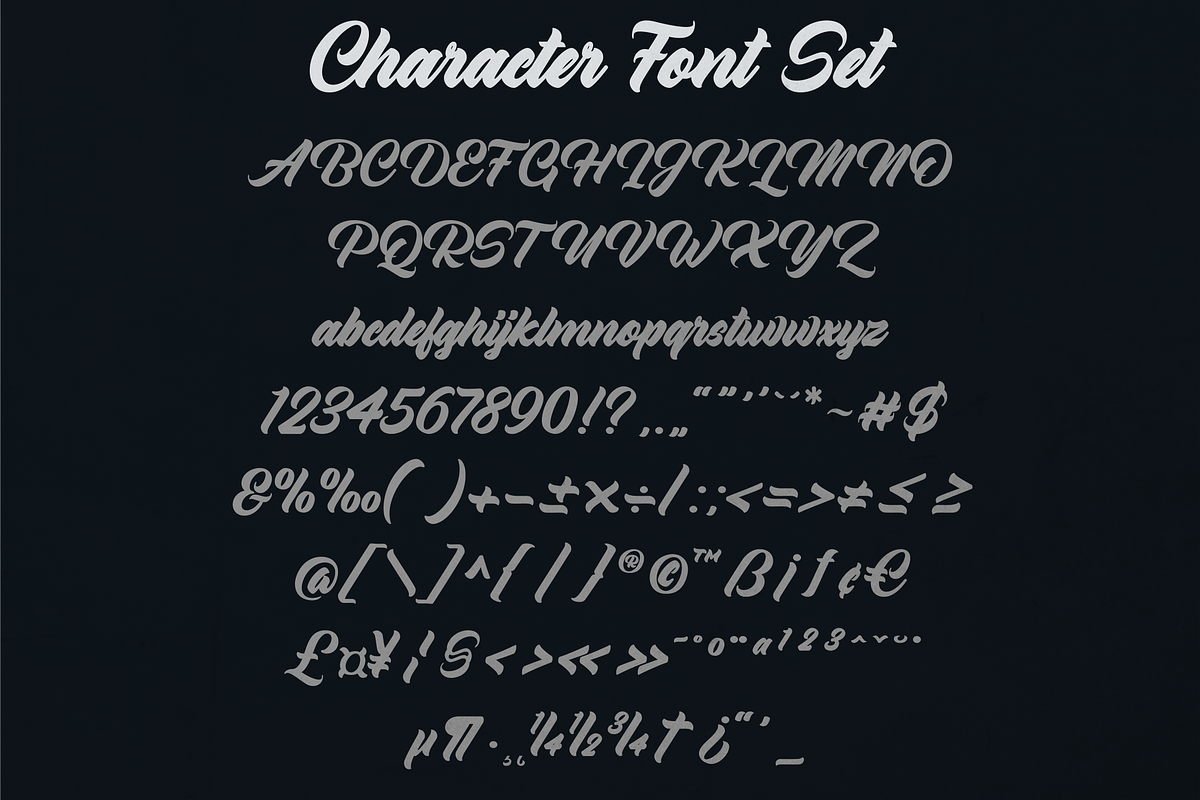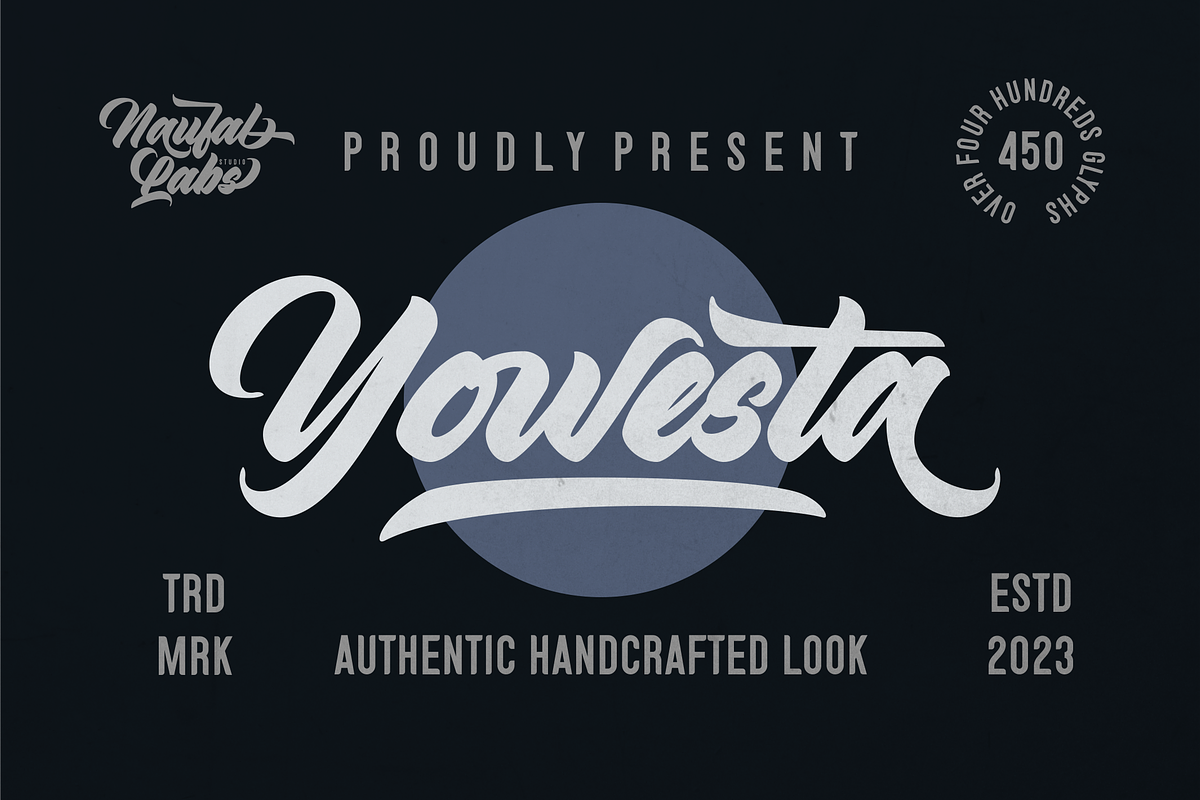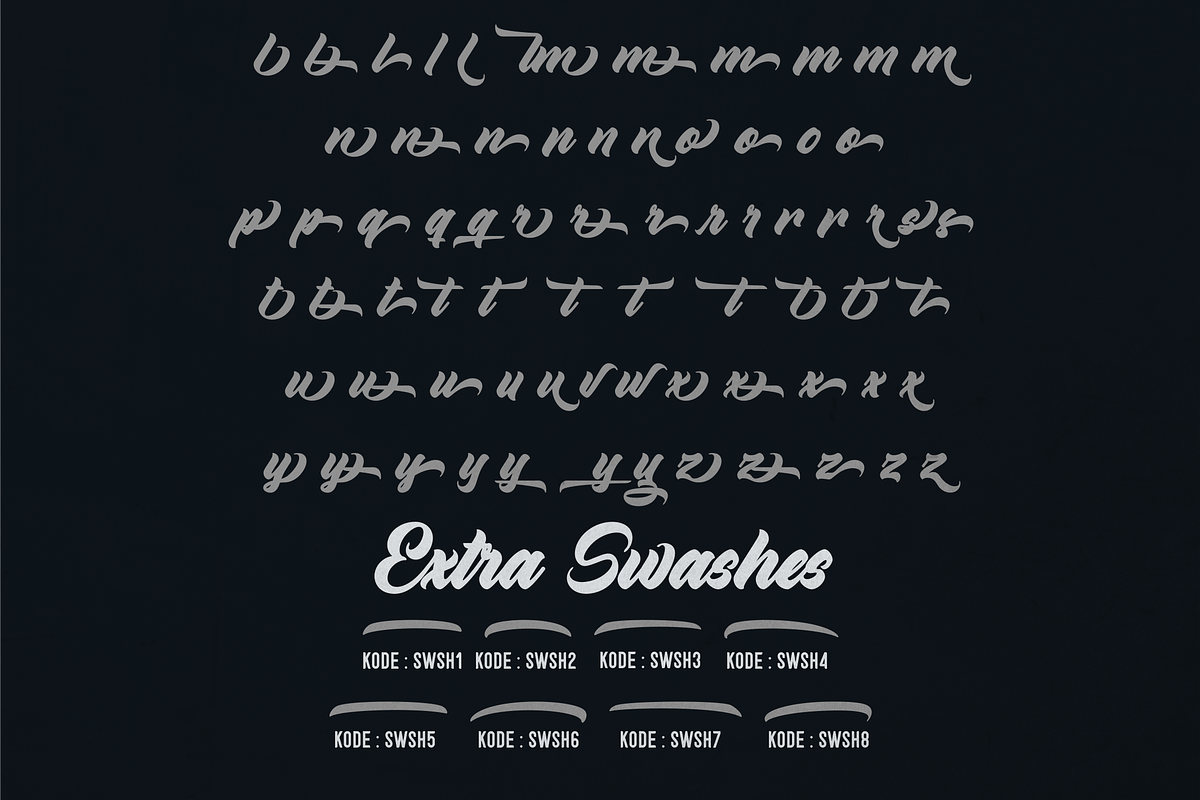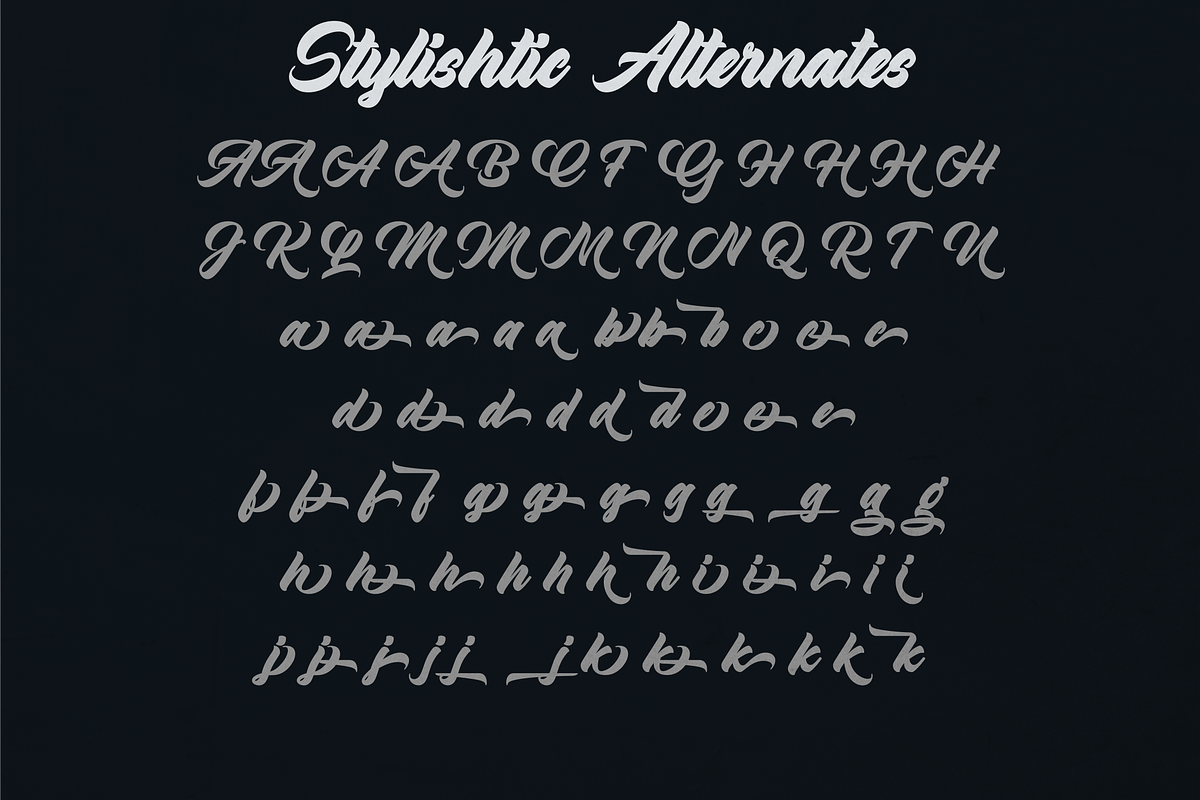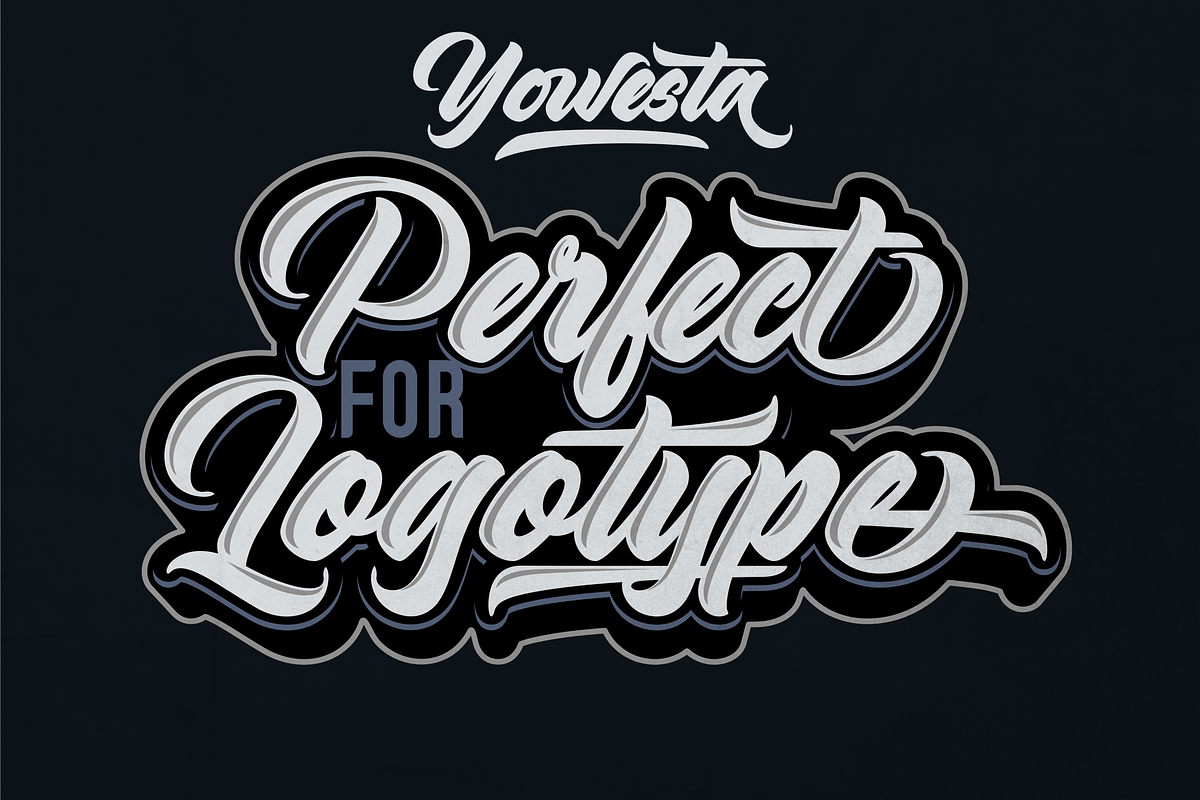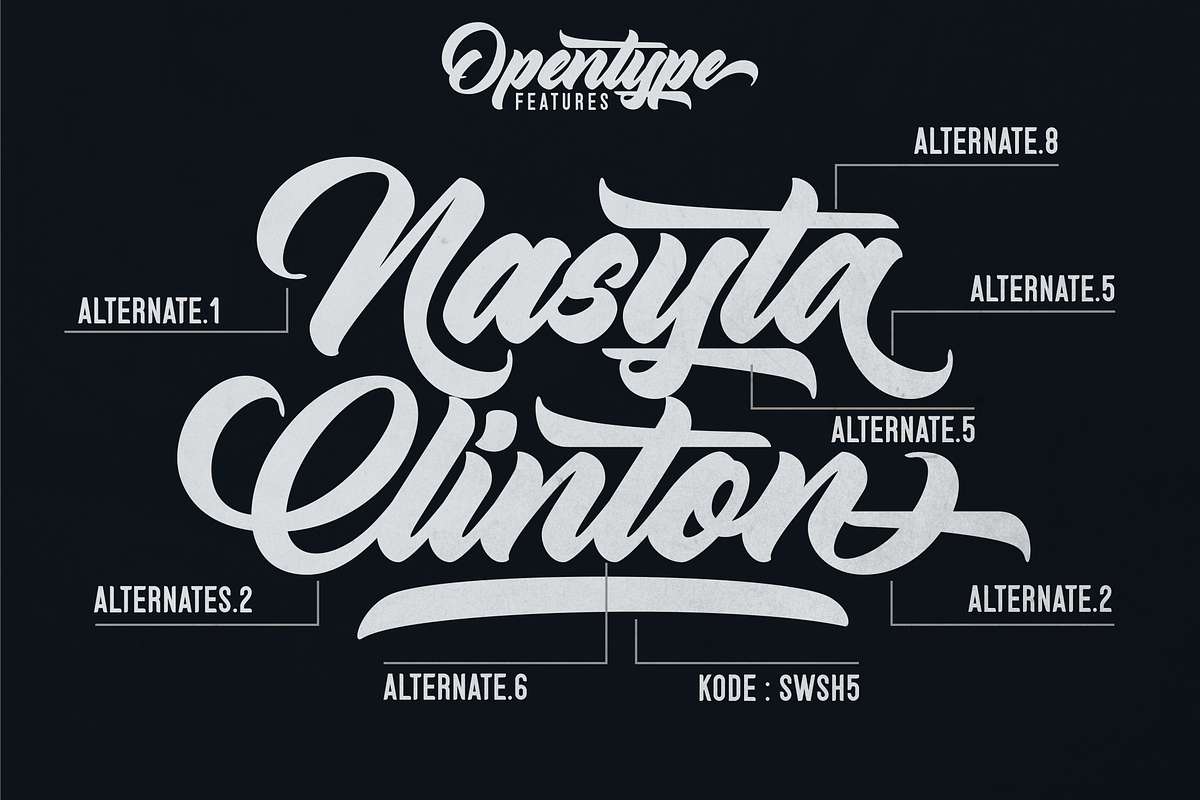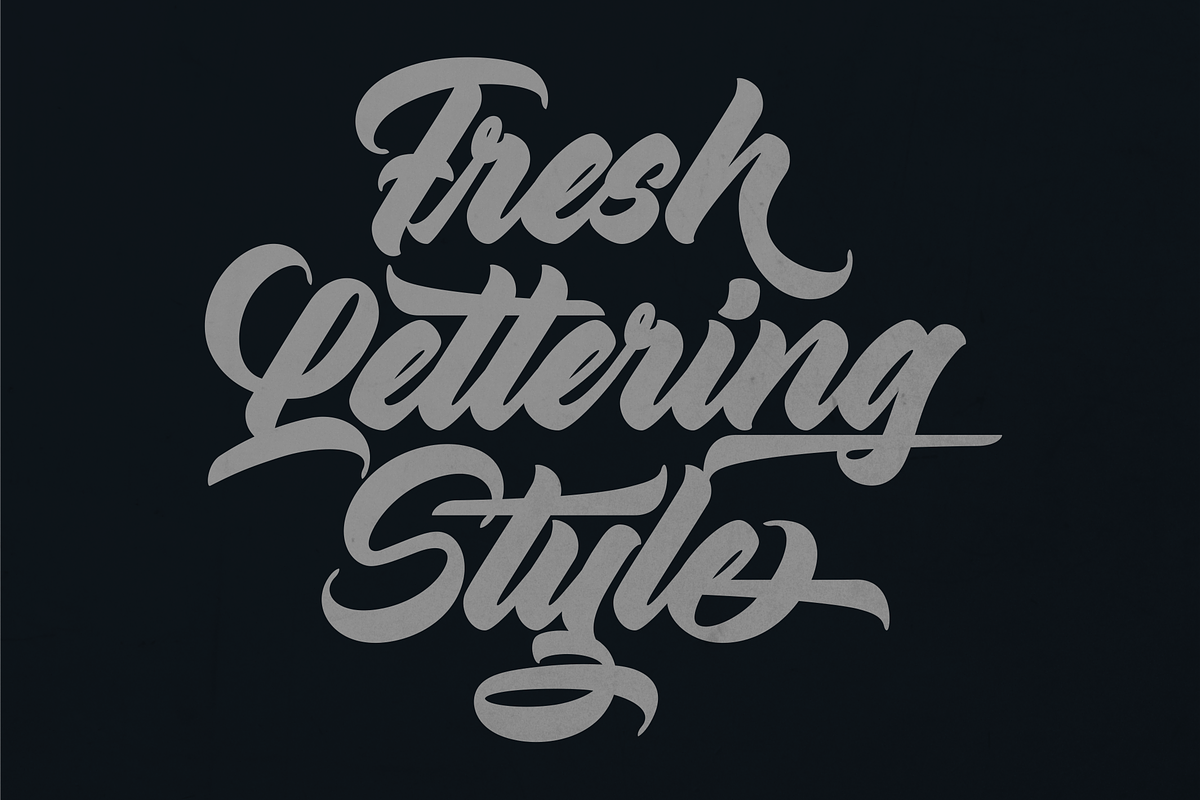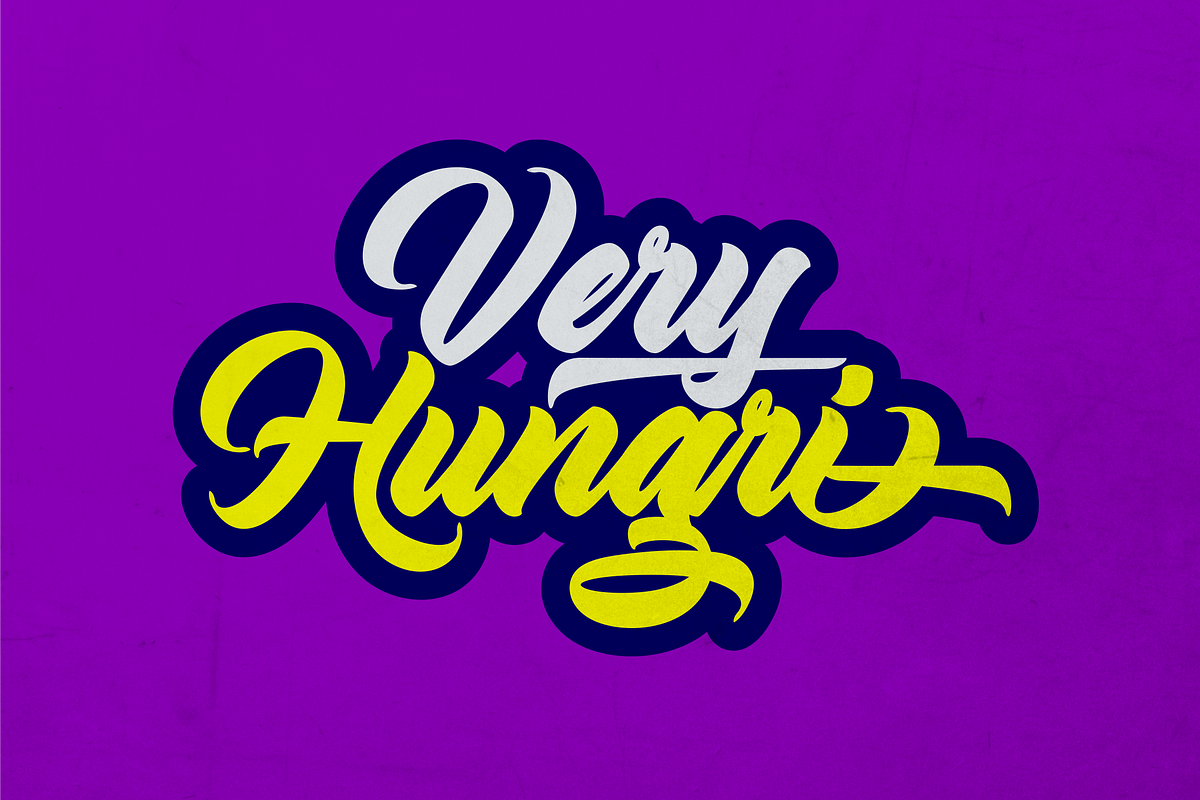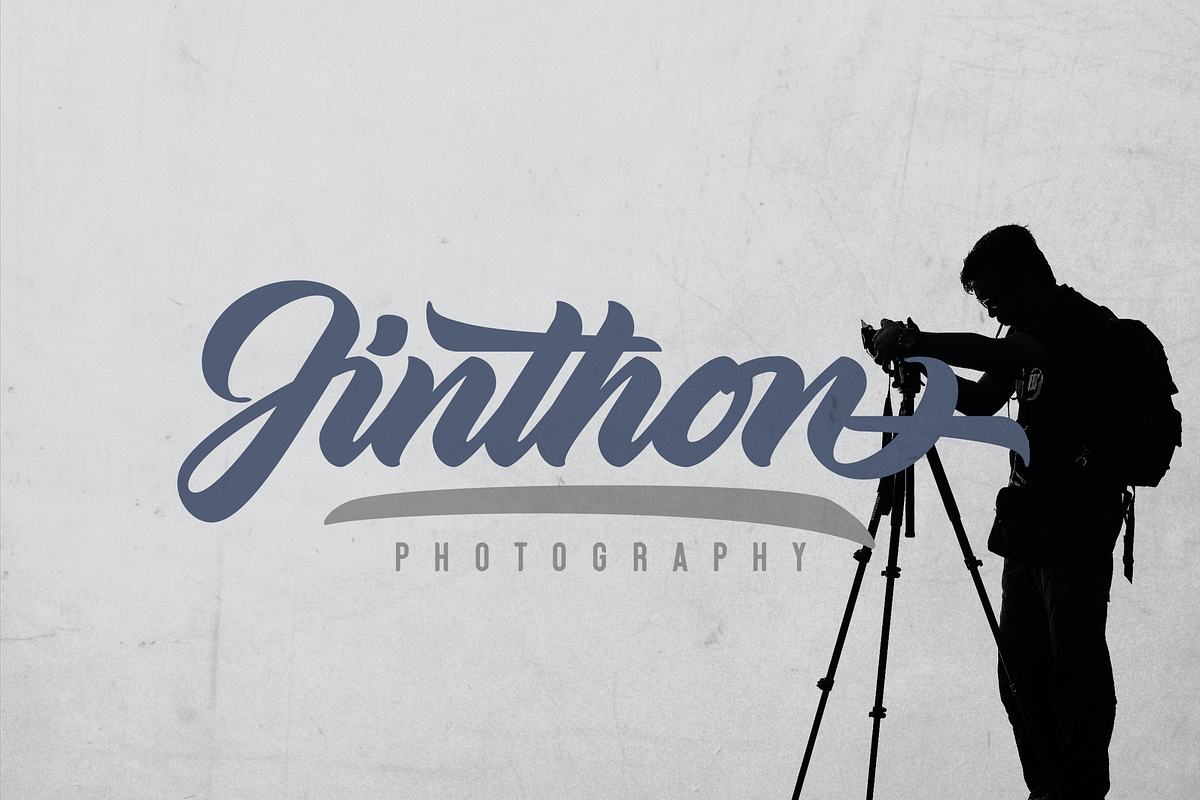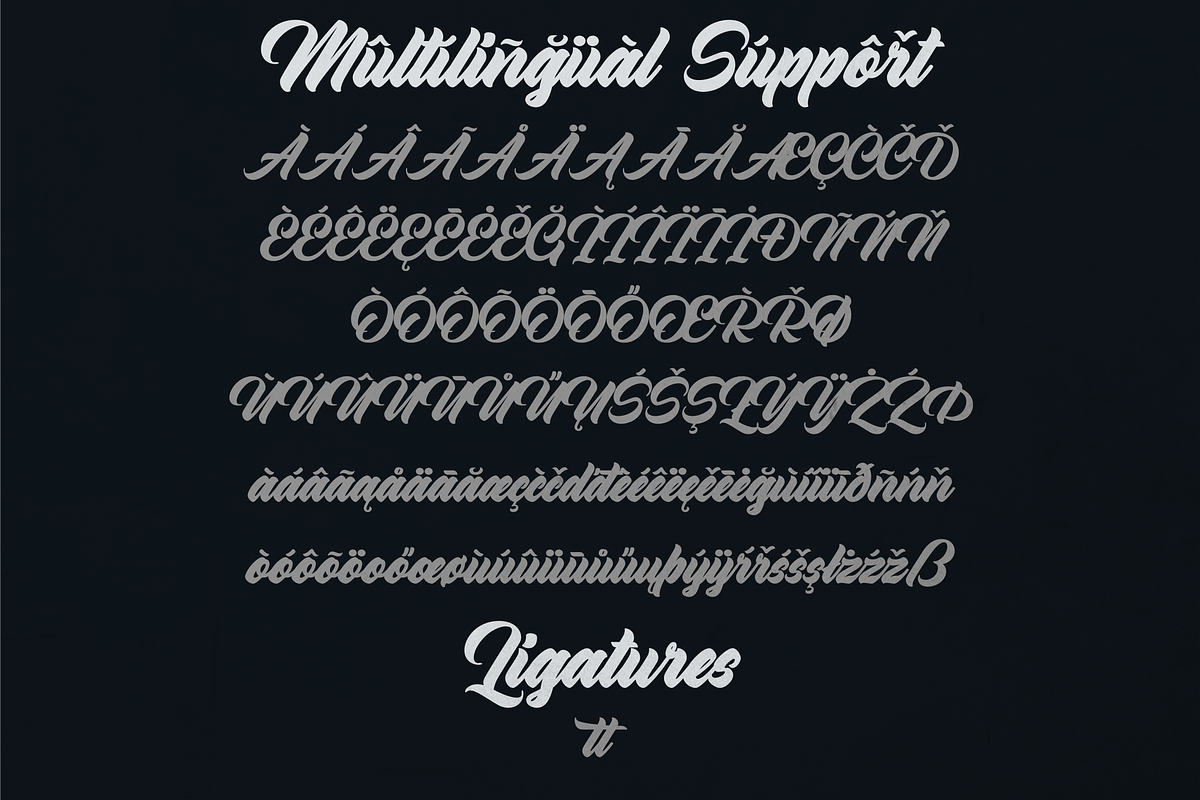
Yowesta Script Font
Yowesta Script Font Inspired by contemporary fashion and streetwear and combination with Hand Lettering style. Yowesta Script Font made with personality touch every single curve.
I hope this can make inspire you from your work. and a very bouncy baseline It has a perfectly paired complimentary marker font , and a super handy set of bonus Swash. Ideal for logos, handwritten quotes, product packaging, header, poster, merchandise, social media & greeting cards.